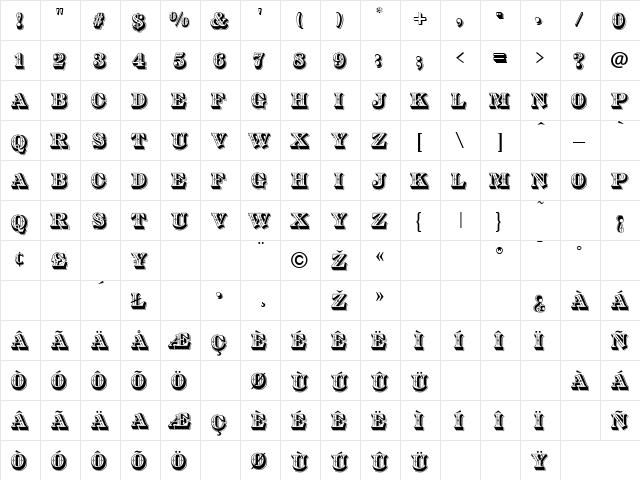
Diamond Inlay Regular
Design Context for Diamond Inlay Typeface
Diamond Inlay is a composed and adaptable typeface that performs quietly and consistently across a wide range of design contexts.